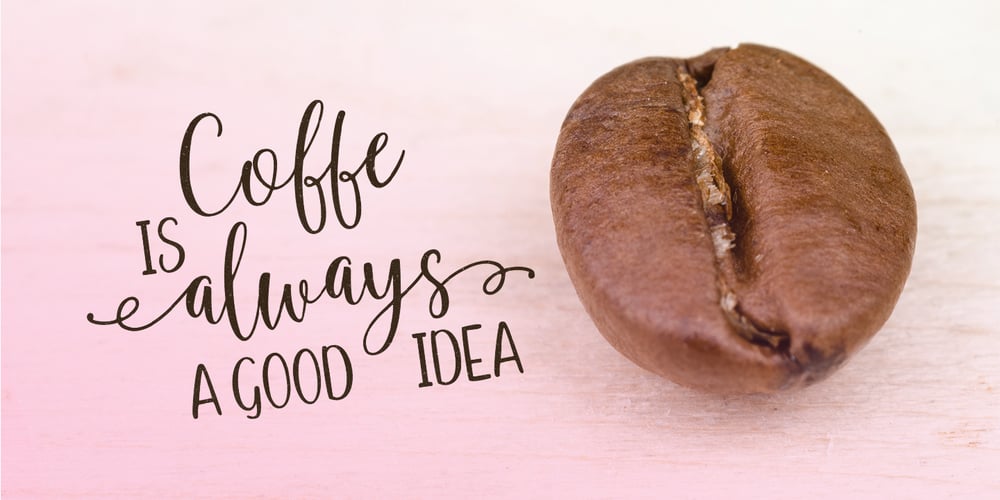
Calissha Script Font Family was designed by M Akmal and published by Mega Type. Calissha Script contains 2 styles and family package options. Calissha Script is a handmade font created with a brush and ink, bold and irregular baseline. Contains a complete set of lowercase, uppercase, alternates, ligatures, punctuation, numbers, and multilingual support. And additional Calissha Capitals, working in harmony with Calissha Script to create typography awesome creations. Get some inspiration from the preview above. Contains a complete set of lowercase, uppercase, ligatures, punctuation, numbers, and multilingual support. Calissha Script is perfect for use in watercolor design or lettering style bold hand, such as blog header, branding, t-shirt, weddings, social media, product design, stationery, advertising, apparel, cover books, business cards, greeting cards, branding, merchandise, invitations and handmade quotes and more. Calissha Script features OpenType stylistic alternates, ligatures and International support for most Western Languages is included. To enable the OpenType Stylistic alternates, you need a program that supports OpenType features such as Adobe Illustrator CS, Adobe Indesign & CorelDraw X6-X7, Microsoft Word 2010 or later versions.How to access all alternative characters using Adobe Illustrator: https://www.youtube.com/watch?v=XzwjMkbB-wQ Calissha Script is coded with PUA Unicode, which allows full access to all the extra characters without having special designing software. Mac users can use Font Book , and Windows users can use Character Map to view and copy any of the extra characters to paste into your favourite text editor/app.How to access all alternative characters, using Windows Character Map with Photoshop: https://www.youtube.com/watch?v=Go9vacoYmBw If you need help or have any questions, please let me know. I’m happy to help ๐ Thanks & Happy Designing!